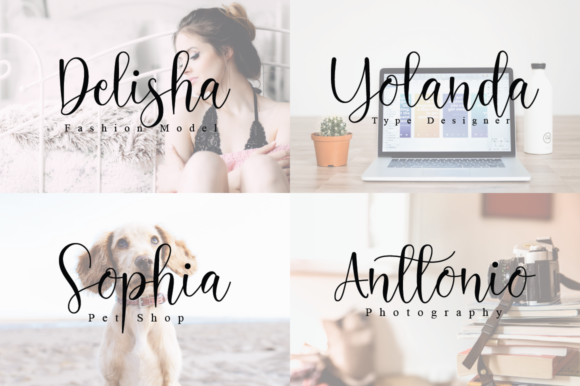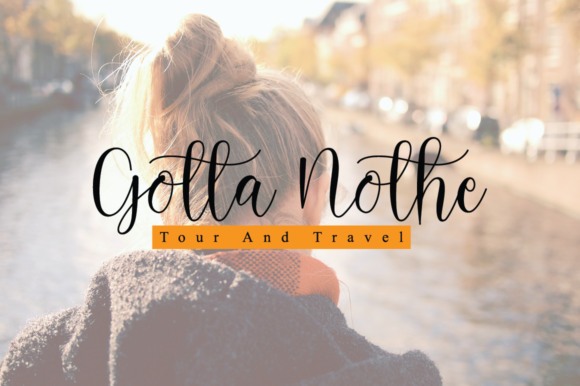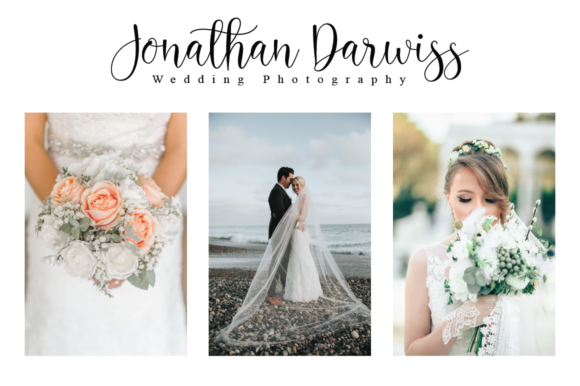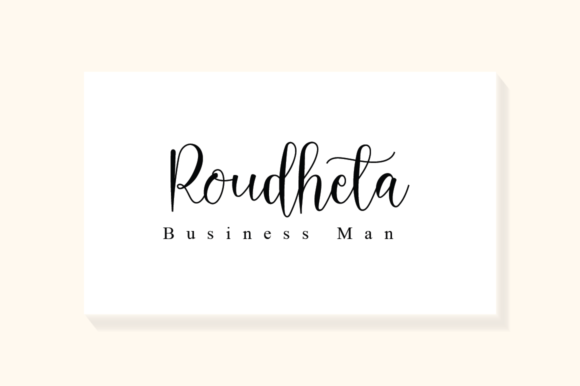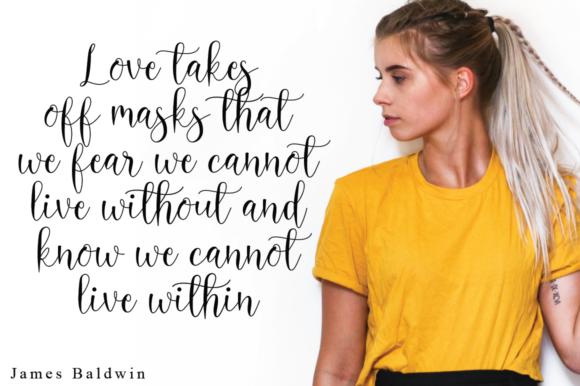
The Birth of a Beautiful Design
Have you ever found yourself stuck in a creative rut, searching for the perfect font to bring your design to life? I know I have. But then, like a ray of sunshine on a cloudy day, I stumbled upon the Hello Butterfly Font. Its elegant and modern script style is the perfect addition to any design project.
The Hello Butterfly Font is a beautiful script font designed to make a statement. With its classy and sophisticated look, it’s perfect for logos, branding, invitations, and wedding designs. Whether you’re a seasoned designer or a DIY enthusiast, this font is sure to impress. Its versatility makes it a valuable asset for designers, allowing them to create stunning visual content that captures the essence of their brand.
Hello Butterfly Font Key Features
- Font Family: Hello Butterfly Font is a unique, hand-drawn script font designed to evoke a sense of whimsy and elegance.
- Character Set: Includes a comprehensive set of uppercase and lowercase letters, numbers, and punctuation marks, making it suitable for various applications.
- Unique Characteristics: Features a distinctive, flowing script style with intricate details and flourishes, adding a touch of personality to any design.
- Language Support: Supports a wide range of languages, including Latin-based alphabets, making it a versatile choice for global applications.
Hello Butterfly Font Review
Overall, I think the Hello Butterfly Font has a lot of charm. ✨ The playful, whimsical feel of the font makes it perfect for children’s books, party invitations, or any other project that needs a touch of magic. The curves are smooth, and the font is easy to read, even at smaller sizes.
- ✨ Unique, hand-drawn feel that sets it apart from other fonts
- ✨ Versatile and can be used for a wide range of projects
- ✨ Easy to read, even at smaller sizes
- ⚠️ Limited to uppercase and lowercase letters, with no support for punctuation or special characters
- ⚠️ May not be suitable for projects that require a more formal or professional look
- ⚠️ May be difficult to pair with other fonts, due to its unique style
Overall, I think the Hello Butterfly Font is a great choice for projects that need a playful, whimsical feel. While it may have some limitations, it’s a versatile and easy-to-read font that can add a touch of magic to any design.
Tips for Getting the Most Out of “Hello Butterfly Font”
Use “Hello Butterfly Font” for titles, headings, and other text elements where you want to add a touch of whimsy and elegance.
Experiment with different font sizes and styles to create a unique and eye-catching design.
Combine “Hello Butterfly Font” with other fonts to create a visually appealing and balanced design.
“Hello Butterfly Font” is ideal for:
– Social media posts and graphics
– Flyers and brochures
– Presentation titles and headings
– Branding and marketing materials
Alternatives to Hello Butterfly Font
Great Vibes Font is a beautiful, elegant script font suitable for use in wedding invitations, greeting cards, and other creative projects. It has a more refined and delicate look compared to Hello Butterfly Font, which makes it ideal for more formal or sophisticated designs.
Carolyna Pro Font is a modern calligraphy font with a mix of elegance and playfulness. It is suitable for use in branding, logos, and other designs where a touch of sophistication is needed. Compared to Hello Butterfly Font, Carolyna Pro has a more structured and refined look, making it ideal for professional projects.
Alex Brush Font is a elegant and beautiful script font suitable for use in creative projects, such as wedding invitations, greeting cards, and book covers. It has a more delicate and refined look compared to Hello Butterfly Font, which makes it ideal for more formal or sophisticated designs.